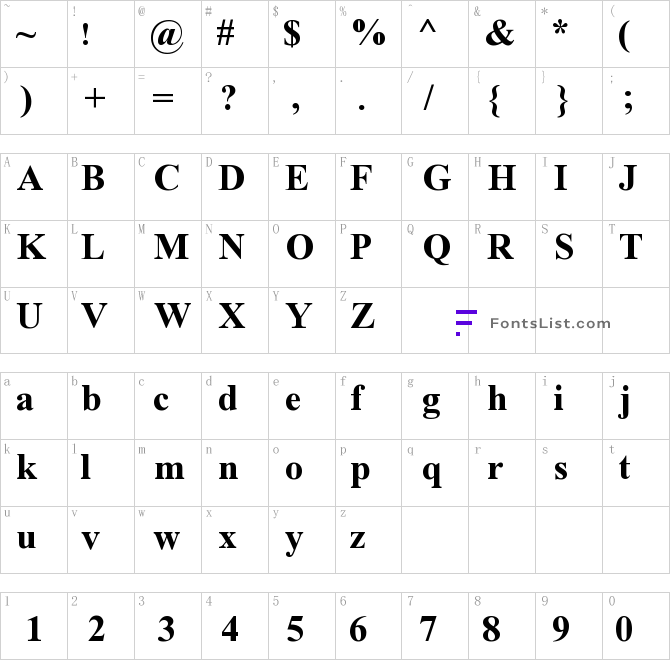
- Font Name:ALKATIP Jornal Tom
ALKATIP-Jornal-Tom.ttf is a very beautiful artistic font, ALKATIP-Jornal-Tom.ttf is widely used in the design and printing of various books and pictures,ALKATIP-Jornal-Tom.ttf has a strong visual impact,ALKATIP-Jornal-Tom.ttf is a commonly used font in newspapers, magazines and books, and is used in posters, e-commerce Poster design, store design, logo design, font design and other fields.ALKATIP-Jornal-Tom.